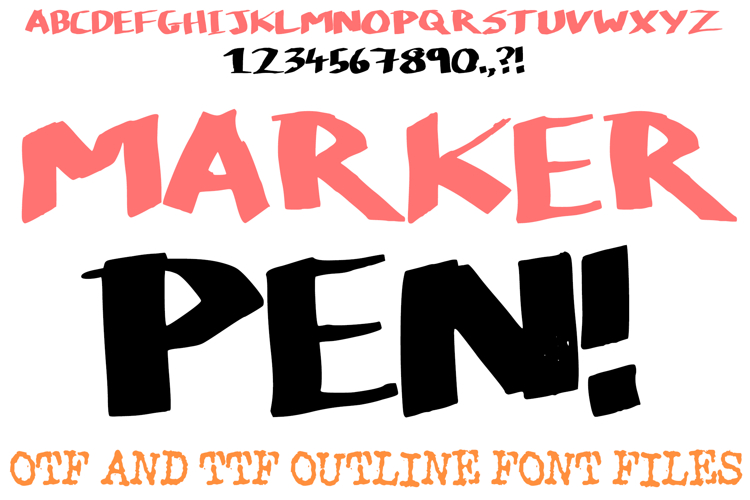
Make a bold, indelible mark on your designs with the Marker Pen Font! This hand-inked display alphabet captures the raw, aggressive energy of a wide-tip permanent marker, featuring heavy strokes and sharp, blade-like terminals. It is the ultimate choice for tattoo-style branding, edgy streetwear labels, underground music posters, and high-impact gaming logos.
The "razor-sharp" aesthetic of each character gives the impression of swift, confident movement, making it perfect for projects that require a sense of urgency and power. Whether you are designing for a hardcore punk band or a gritty urban brand, the Marker Pen Font delivers an authentic, hand-painted presence that cuts through the noise.
Aggressive Blade Terminals: The ends of each stroke feature sharp, pointed details for a dangerous and edgy look.
Raw Calligraphic Energy: The uneven, hand-drawn outlines mimic real ink on paper, adding a human, artisan feel to your digital typography.